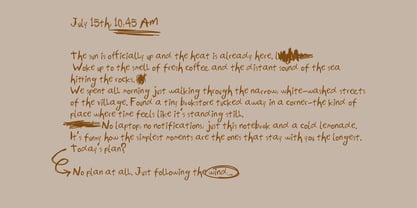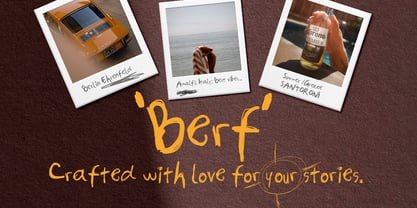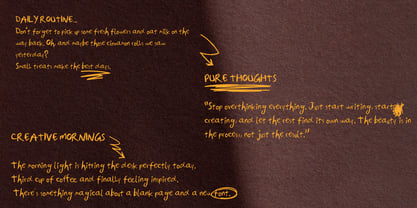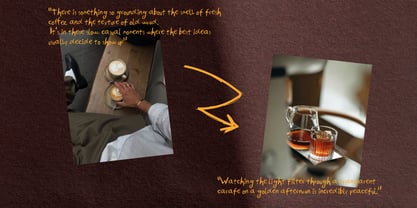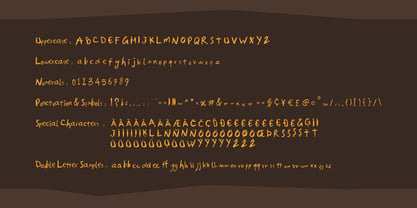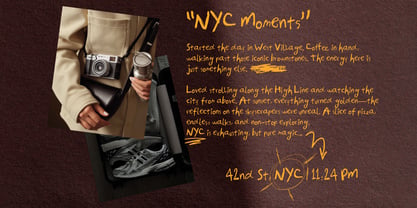
Berf
La familia tipográfica Berf fue diseñada por Meriç Akdoğan y publicada por Mmx Studio. Berf contiene 1 estilos. Más información sobre esta familia
Berf: The Authentic Soul of Handwriting Berf is more than just a font; it’s a mood. Designed for those who find beauty in imperfection, Berf captures the raw aesthetic of quick scribbles and messy journaling. It was created to break the sterile, "artificial" look of digital typography, bringing a human touch to every pixel. Why Berf feels different: Realism and Flow: Built with smart double-letter ligatures, Berf ensures that repeating letters change automatically. This creates a natural rhythm, making your text look like it was written with a pen in real-time, not typed on a keyboard. Human-Centric Design: Inspired by late-night journaling and spontaneous notes, it’s perfect for adding a sincere, personal layer to your projects. Full Versatility: With comprehensive multilingual support and special symbols, Berf speaks many languages without losing its unique character. Perfect for: Digital journaling and iPad notes. Sincere social media posts and "Instax" style photography. Lifestyle branding and organic packaging. Any design that needs a "human-made" feel.